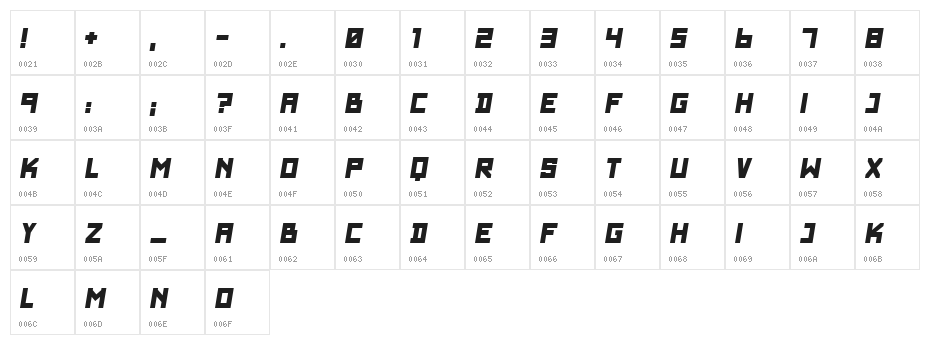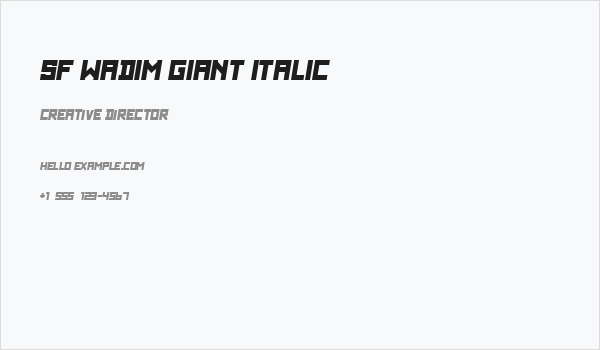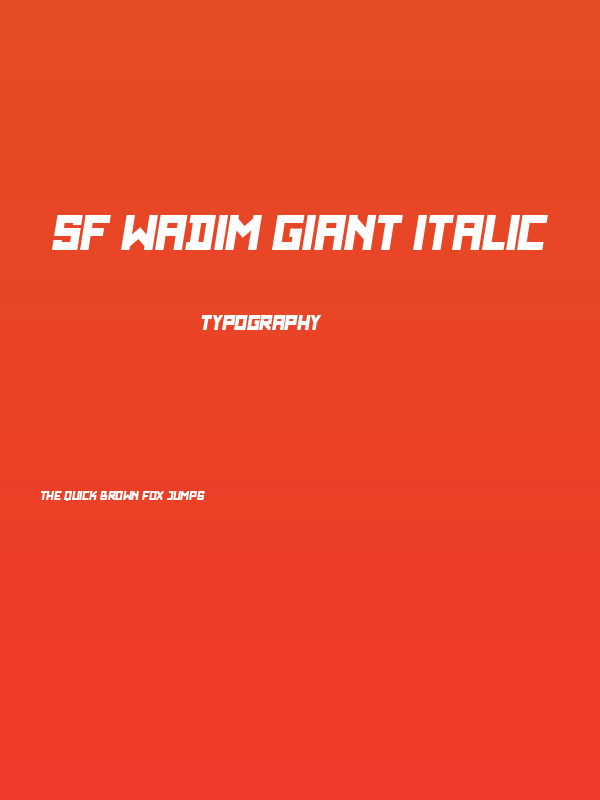
SF WADIM GIANT ITALIC Font
SF WADIM GIANT ITALIC Description
This font features a bold and dynamic design with a strong italic slant, giving it a sense of movement and energy. The characters are blocky and geometric, with sharp angles and a consistent stroke width that conveys a modern and assertive aesthetic. The uppercase and lowercase letters maintain a uniform style, enhancing readability while adding a unique flair. The numbers and special characters follow the same design principles, ensuring a cohesive look across all text elements. This font's bold presence makes it ideal for attention-grabbing headlines and impactful designs.
| Proposed Projects | Ideal for sports branding, dynamic posters, video game titles, and modern advertising campaigns. |